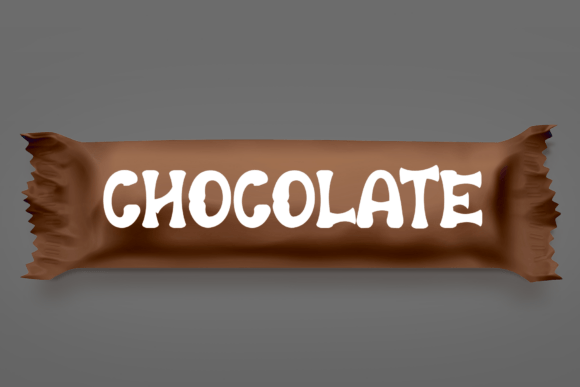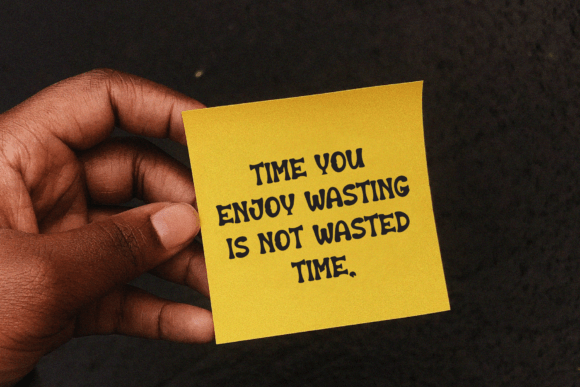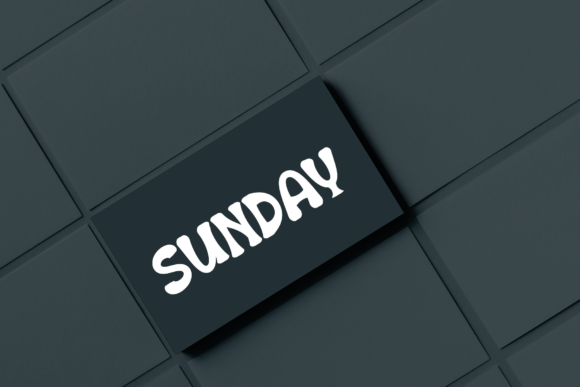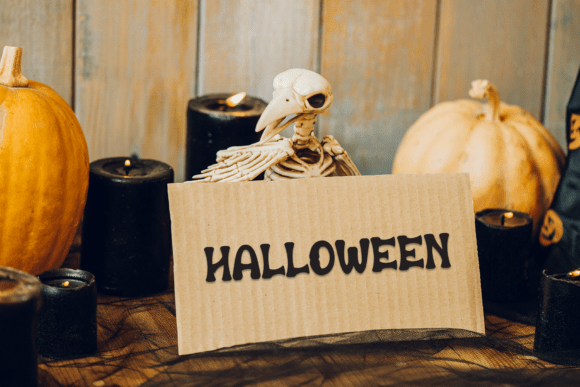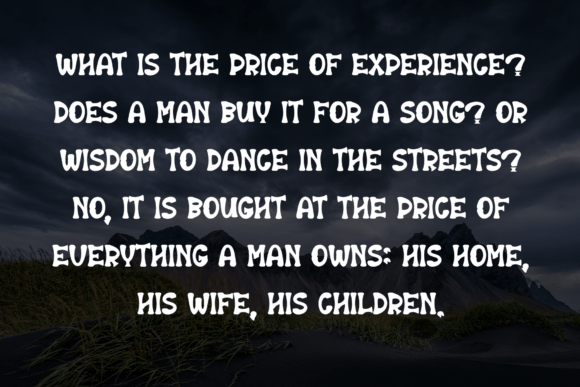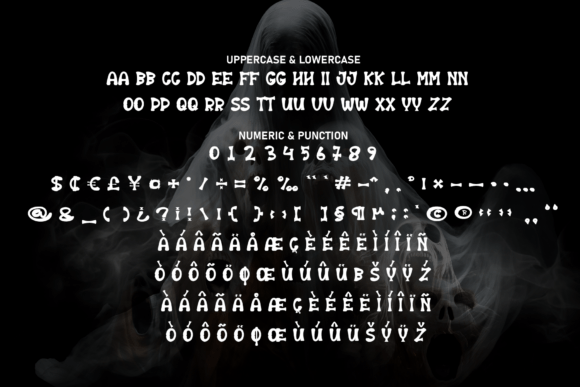
Unleash the Fun with Ghost Scary Font: The Ultimate Casual Display Font
Are you tired of using the same old fonts for your design projects? Look no further than Ghost Scary Font, a casual display font that brings a fresh and friendly touch to any project. With its modern simplicity, playful vibe, and versatile character, Ghost Scary Font is perfect for designers and crafters looking to add a unique touch to their work.
What Makes Ghost Scary Font So Special?
Ghost Scary Font is a carefully crafted font that blends clean shapes, soft edges, and well-balanced letterforms to create a charming and approachable design. Its relaxed and casual feel makes it ideal for a wide range of applications, from posters and branding to packaging and social media graphics.
One of the standout features of Ghost Scary Font is its ability to balance style and clarity. The font’s clean lines and simple shapes ensure that it remains easy to read, even at smaller sizes, making it perfect for use in a variety of contexts.
The Benefits of Using Ghost Scary Font
So why choose Ghost Scary Font for your next design project? Here are just a few benefits of using this versatile and eye-catching font:
- Fresh and Friendly Touch: Ghost Scary Font adds a unique and playful touch to any project, setting it apart from more traditional fonts.
- Versatile Character: The font’s clean and simple design makes it suitable for use in a wide range of applications, from formal to informal.
- Readability: Ghost Scary Font is designed to be easy to read, even at smaller sizes, making it perfect for use in body text or captions.
- Personality: The font’s playful and approachable vibe gives it a unique personality that shines through in any design.
Ghost Scary Font is a dream come true for designers and crafters looking to add a personal touch to their work. Whether you’re creating posters, branding materials, packaging, or social media graphics, this font is sure to impress.
With Ghost Scary Font, you can:
- Create eye-catching posters and flyers that grab attention.
- Develop a unique brand identity that sets you apart.
- Design packaging that stands out on store shelves.
- Elevate your social media graphics with a fresh and friendly touch.
Tips for Using Ghost Scary Font
To get the most out of Ghost Scary Font, here are a few tips to keep in mind:
- Experiment with Sizes: Ghost Scary Font looks great at a range of sizes, from large display text to smaller body text.
- Play with Colors: The font’s clean design makes it easy to pair with a wide range of colors and textures.
- Mix and Match: Don’t be afraid to combine Ghost Scary Font with other fonts to create a unique and interesting design.
Ghost Scary Font is a game-changing casual display font that’s perfect for designers and crafters looking to add a fresh and friendly touch to their work. With its modern simplicity, playful vibe, and versatile character, this font is sure to become a go-to in your design arsenal.